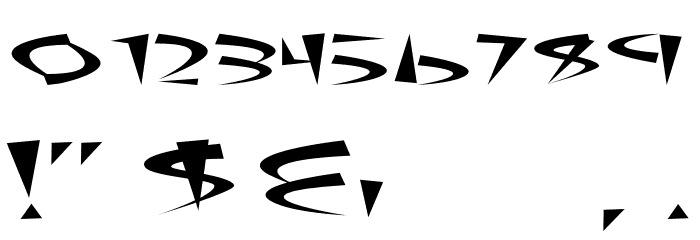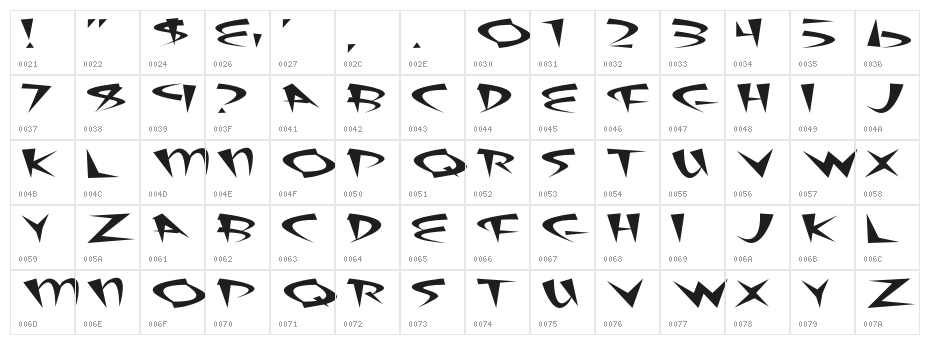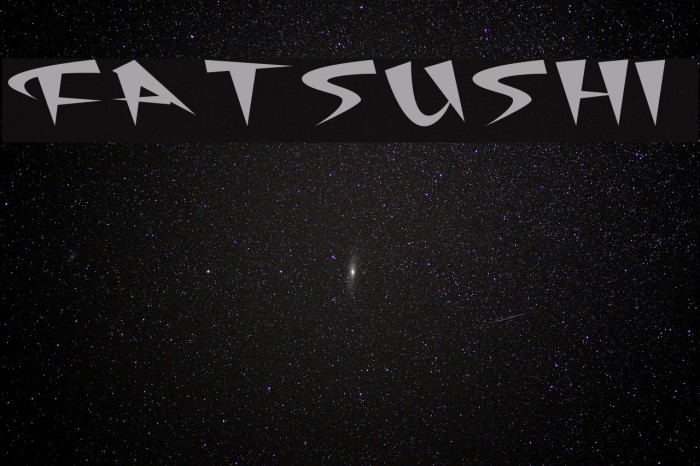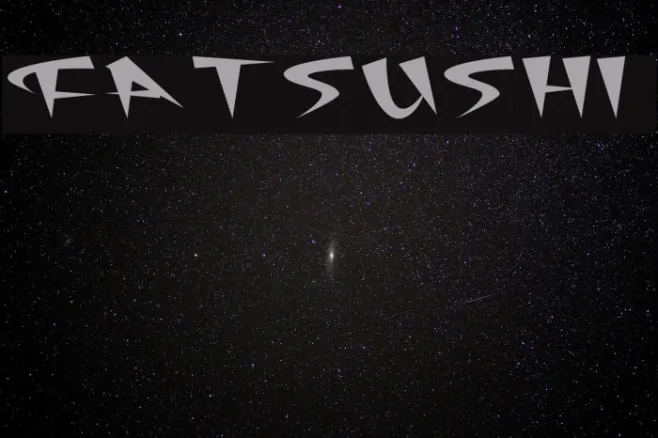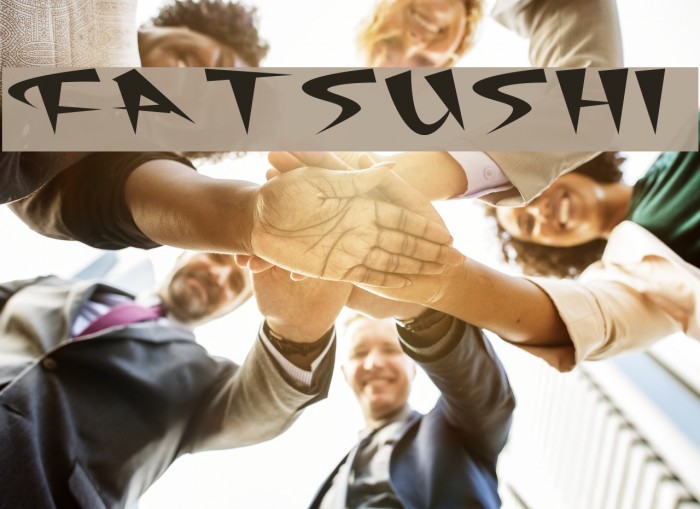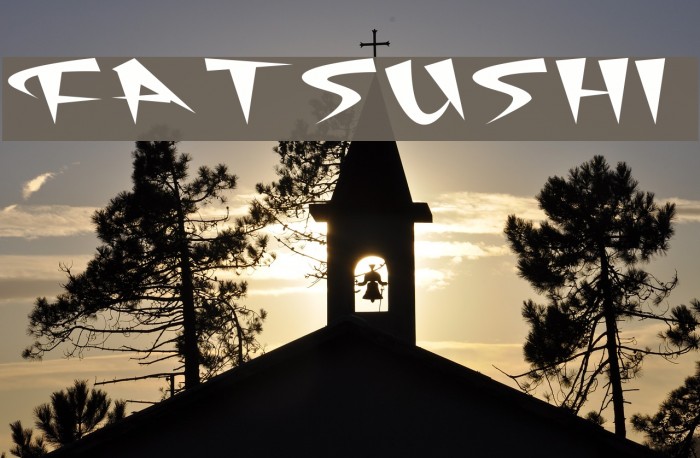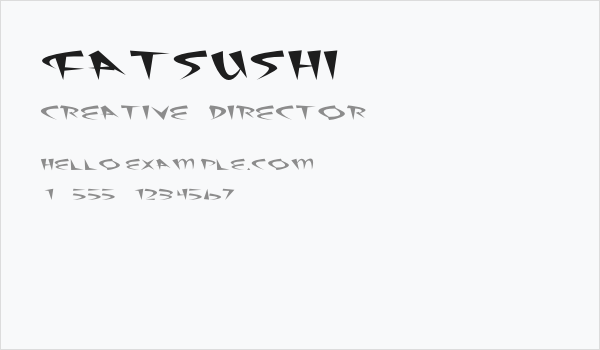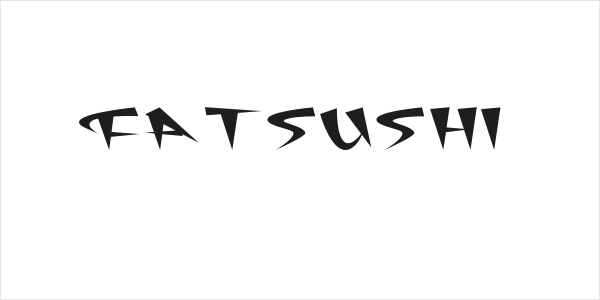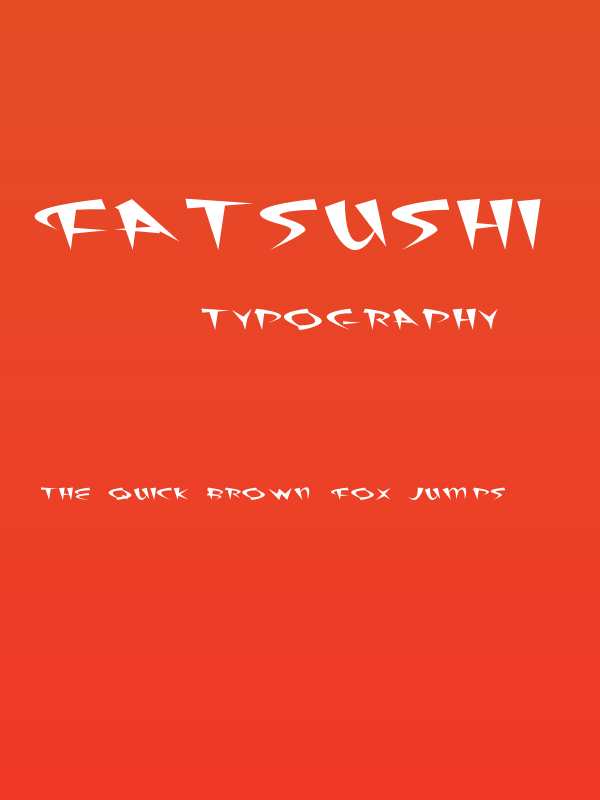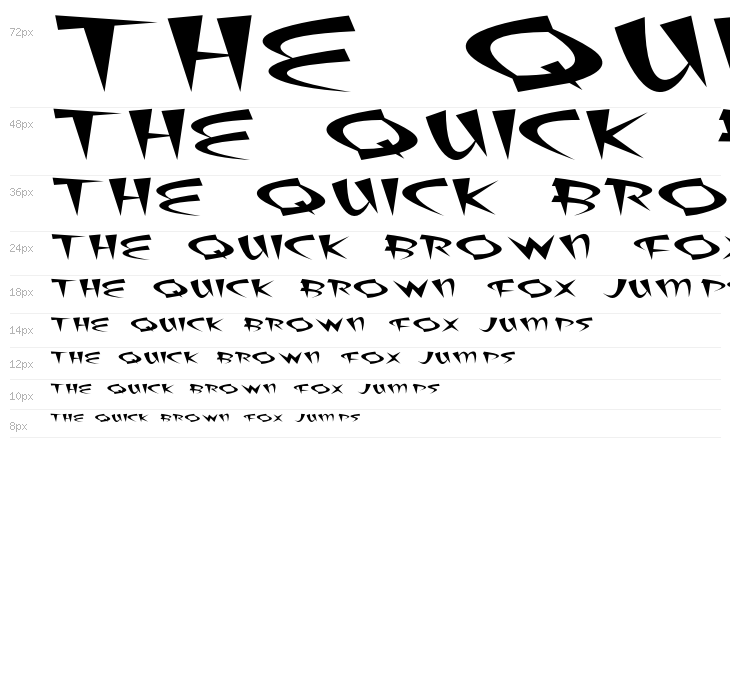
FatSushi Font
FatSushi Description
This font features a bold and edgy design with sharp, angular lines and a dynamic, energetic feel. The characters are crafted with a sense of movement, as if they are slicing through the space they occupy. The uppercase and lowercase letters maintain a consistent style, with exaggerated points and curves that give the font a unique, almost futuristic appearance. The numerals and special characters follow the same design principles, ensuring a cohesive look across all glyphs. This font is ideal for projects that require a strong visual impact and a modern, unconventional aesthetic.
| Proposed Projects | Ideal for branding, posters, album covers, and any project needing a striking, modern look. |